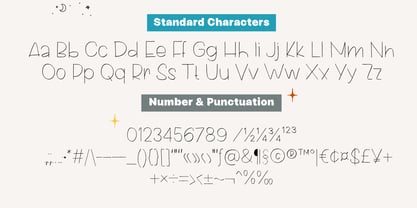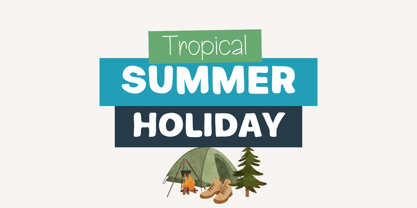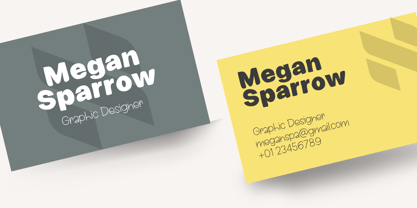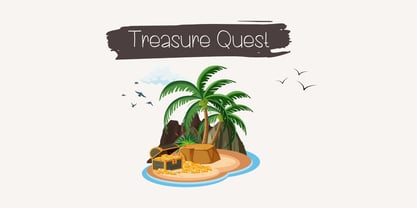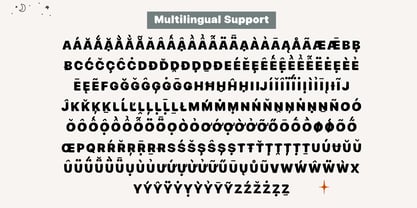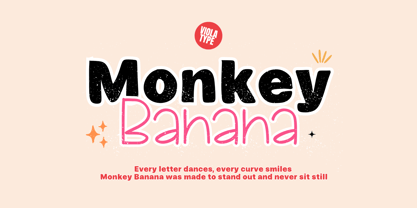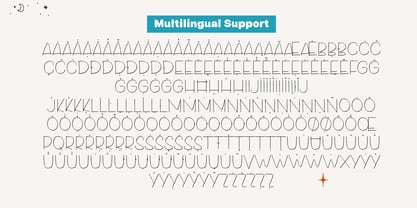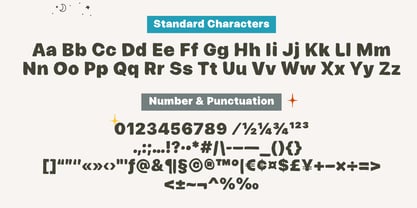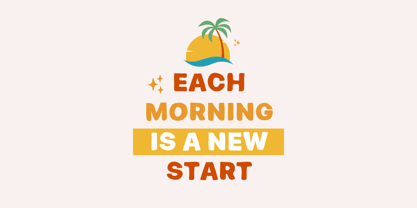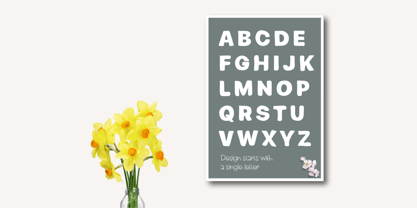
Monkey Banana
by Violatype
The Monkey Banana Font Family was designed by David Kasidi, Hasna Viola and published by Violatype. Monkey Banana contains 2 styles and family package options. More about this family
Monkey Banana – A Cheerful Font Duo with Playful Personality!
A quirky and joyful font duo that combines a light, handwritten script with a chunky, bold display — made to bring your creative ideas to life with a smile.
Monkey Banana is all about fun, friendliness, and flexibility. Whether you’re designing a cute kids project, crafting an eye-catching social media post, or building a brand with personality, this duo gives you the perfect combo of casual charm and strong character.
Monkey Banana is here to bring joy to your design toolbox, playful like a monkey, bold like a banana.
Designers: David Kasidi, Hasna Viola
Foundry: Violatype